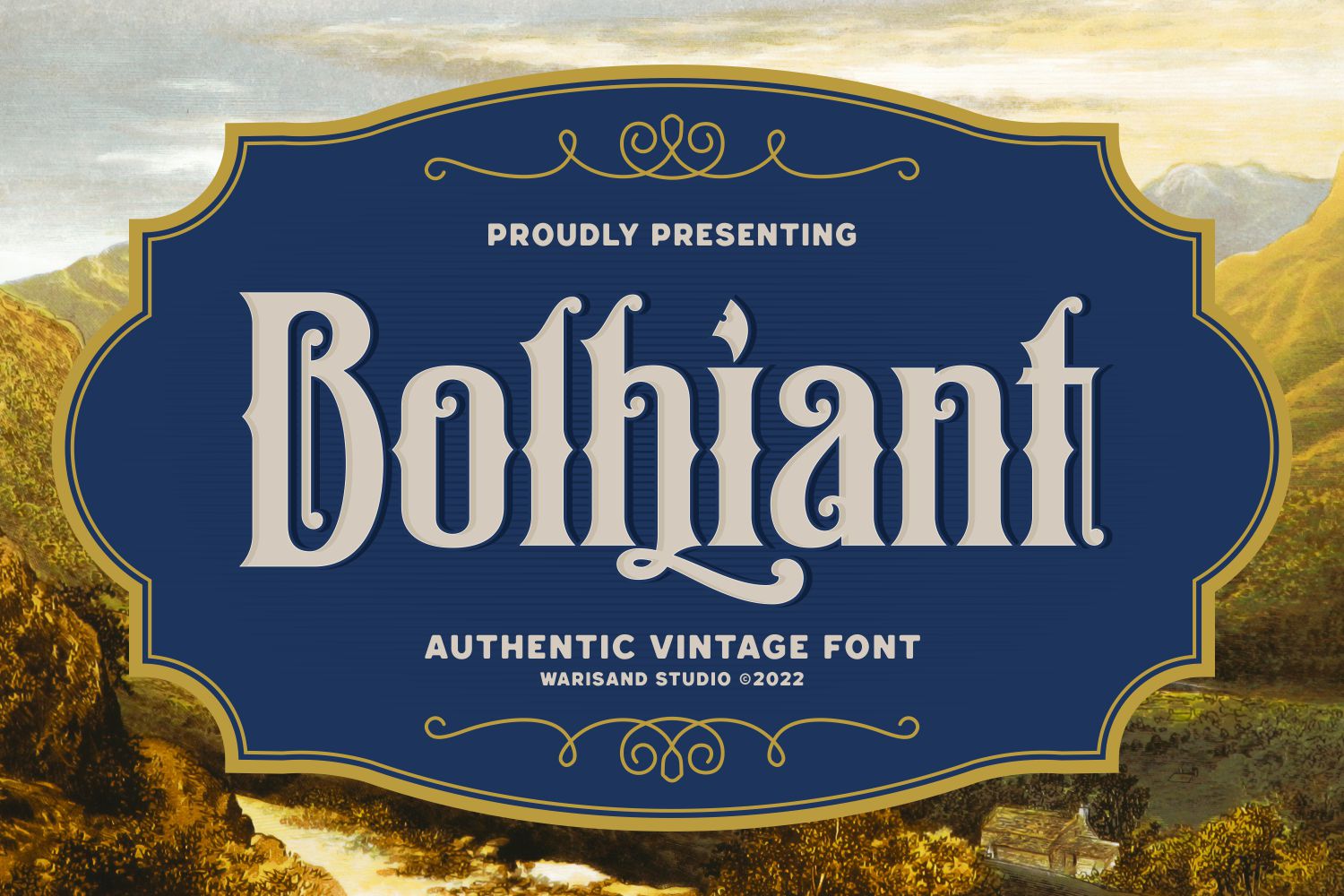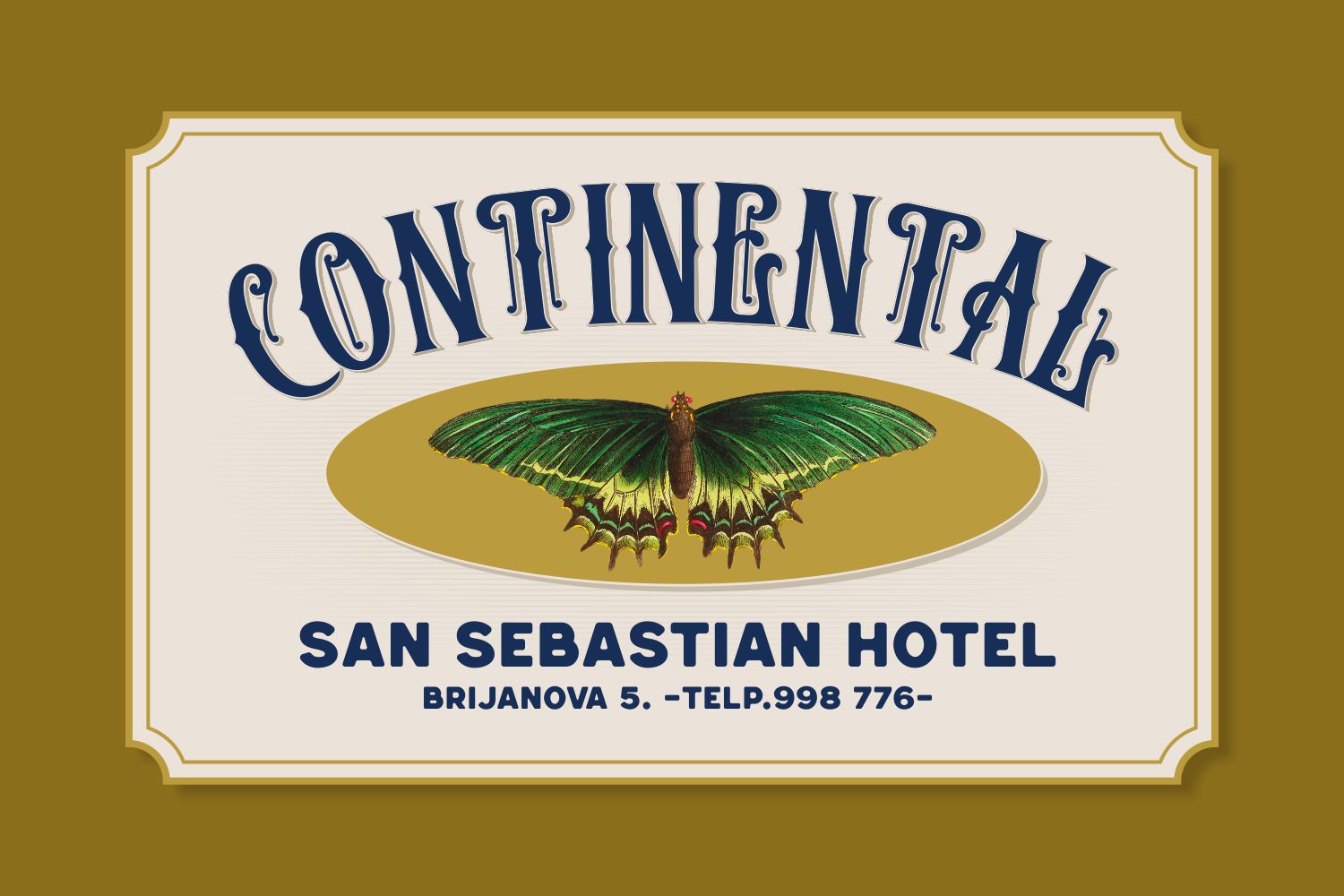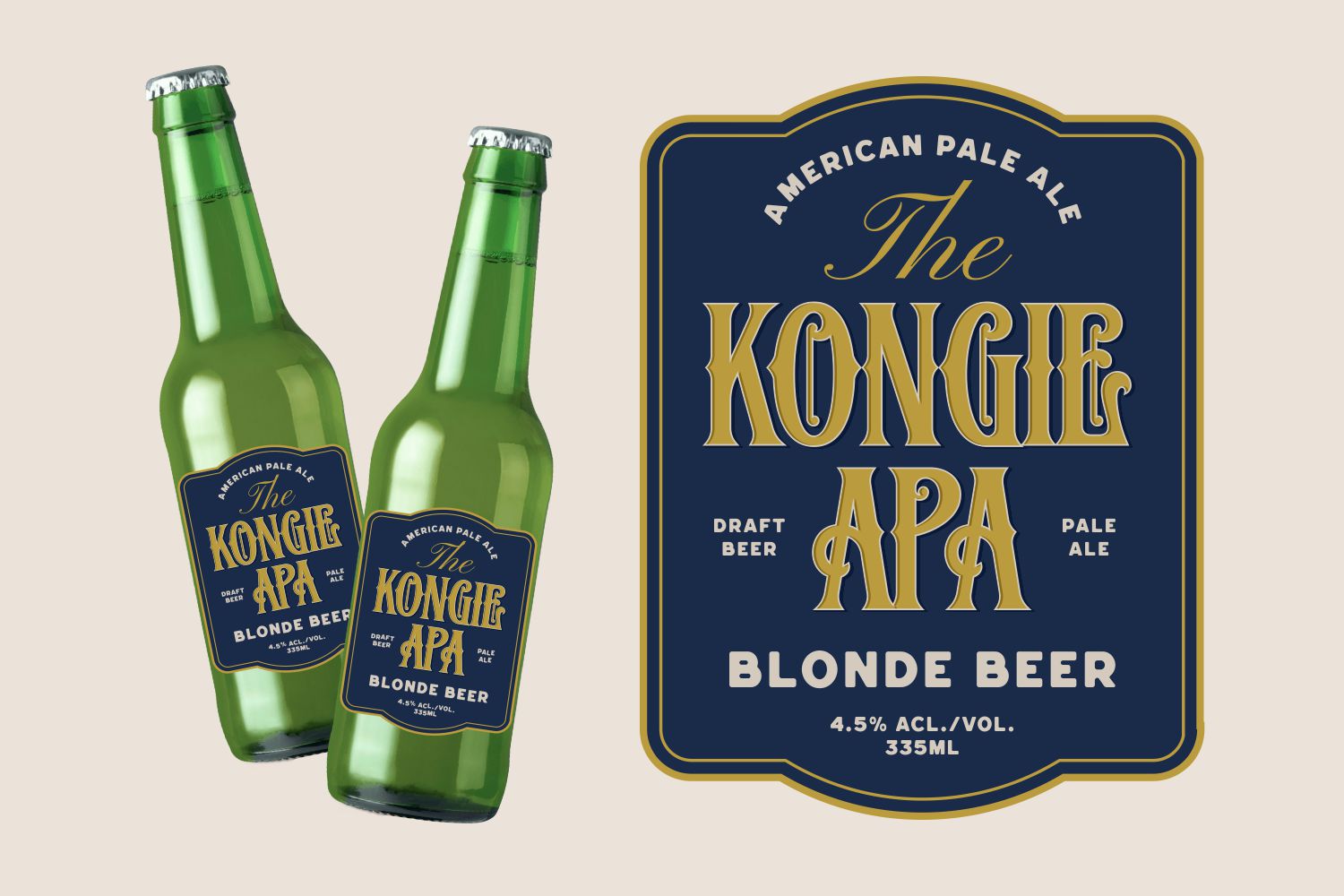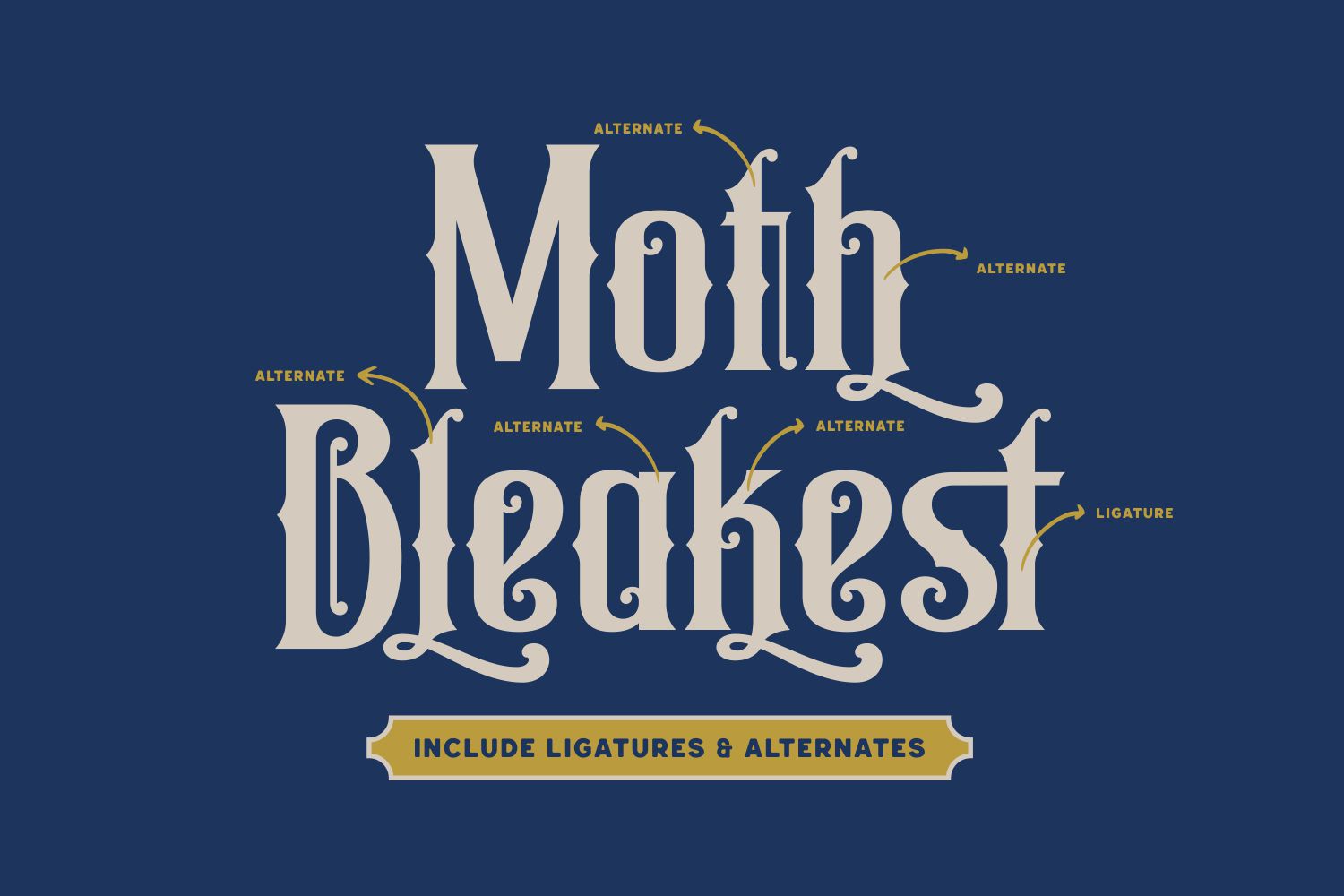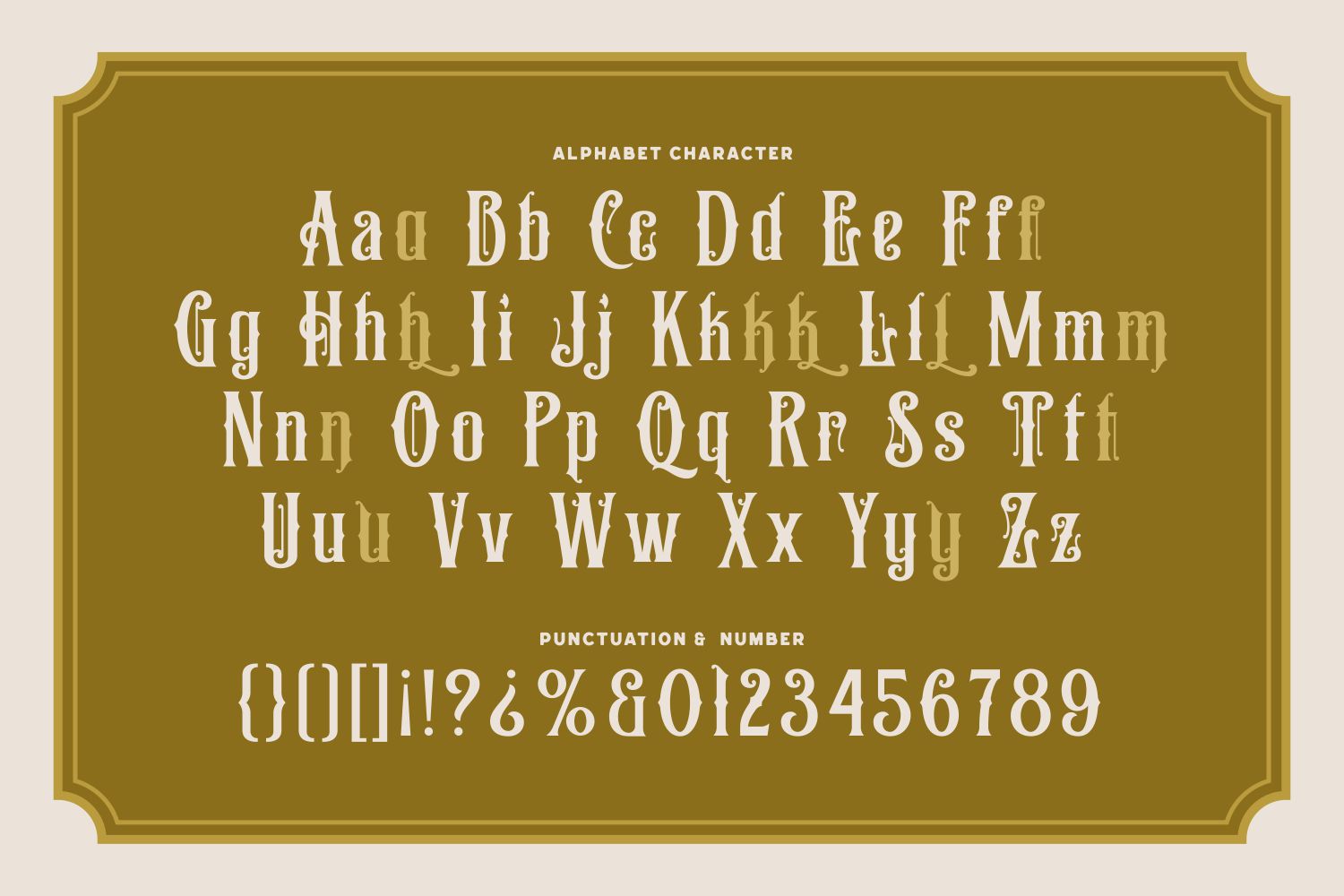
Bolhiant is a bold and authentic vintage font that brings a sense of classic elegance and historical charm to your design projects. With its intricate curves, ornamental alternates, and sharp serifs, Bolhiant captures the essence of old-fashioned labels, whiskey packaging, hotel signs, and vintage posters. Its high contrast and decorative style make it ideal for headlines, branding, or any project that needs a touch of timeless character.
This font includes a full set of uppercase and lowercase letters, multilingual punctuation, ligatures, and stylistic alternates to give you full creative flexibility. Whether you’re crafting a label for a craft beer, designing hotel branding, or working on nostalgic print work, Bolhiant will deliver a striking, memorable impression.
Bolhiant
Warisand Studio